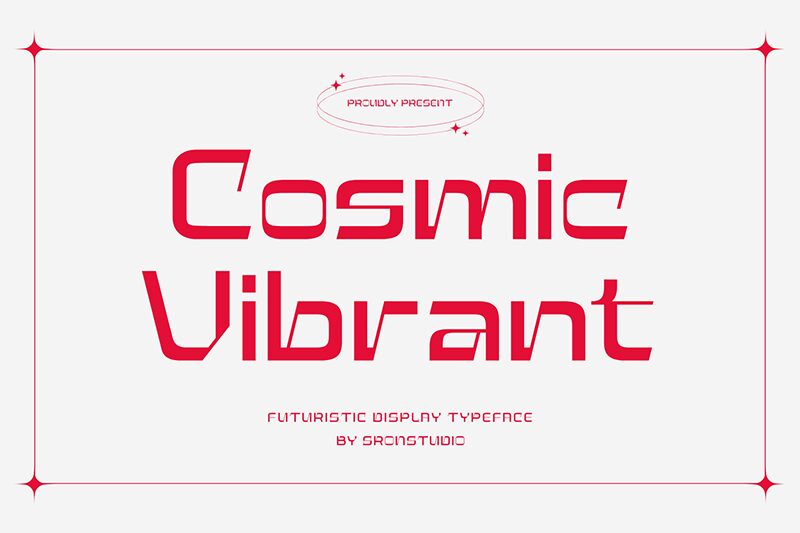
Cosmic Vibrant
Cosmic Vibrant font is a display font created by Sronstudio with a futuristic style and expanded width. Sleek streamlined designs, geometric letters, modern aesthetics, and technological influences make this font stand the test of time. This is not to mention the reminder of minimalistic visuals that are bound to speak loud in any context.
Write using Cosmic Vibrant for headlines, poster titles, magazine covers, product labels/packaging projects, mobile or browser games interfaces. Movies or series’ opening credits or title sequences will look astonishing when displayed in private or public use with this free classic technological influence typeface never seen before!